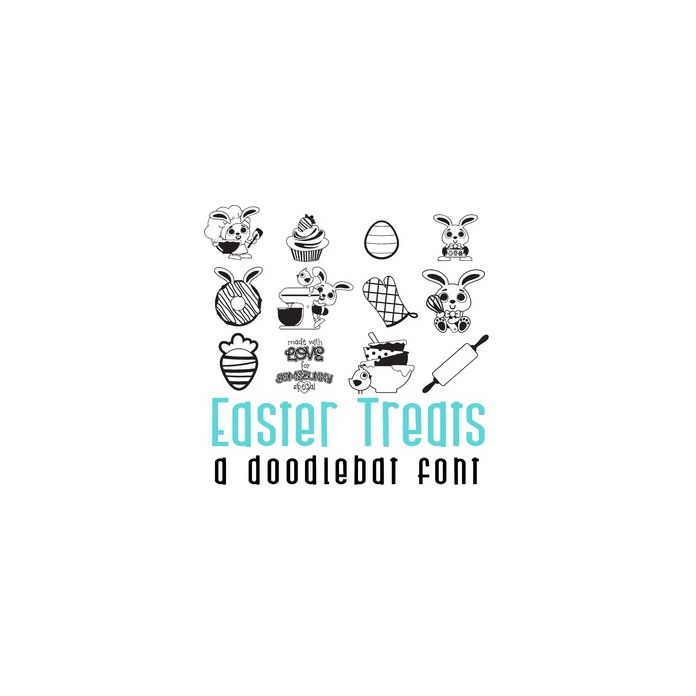
This fun doodlebat font features 26 images of bunnies baking Easter Treats. Perfect for cards, crafts, gifts, decor, planner stickers, scrapbook pages and more!